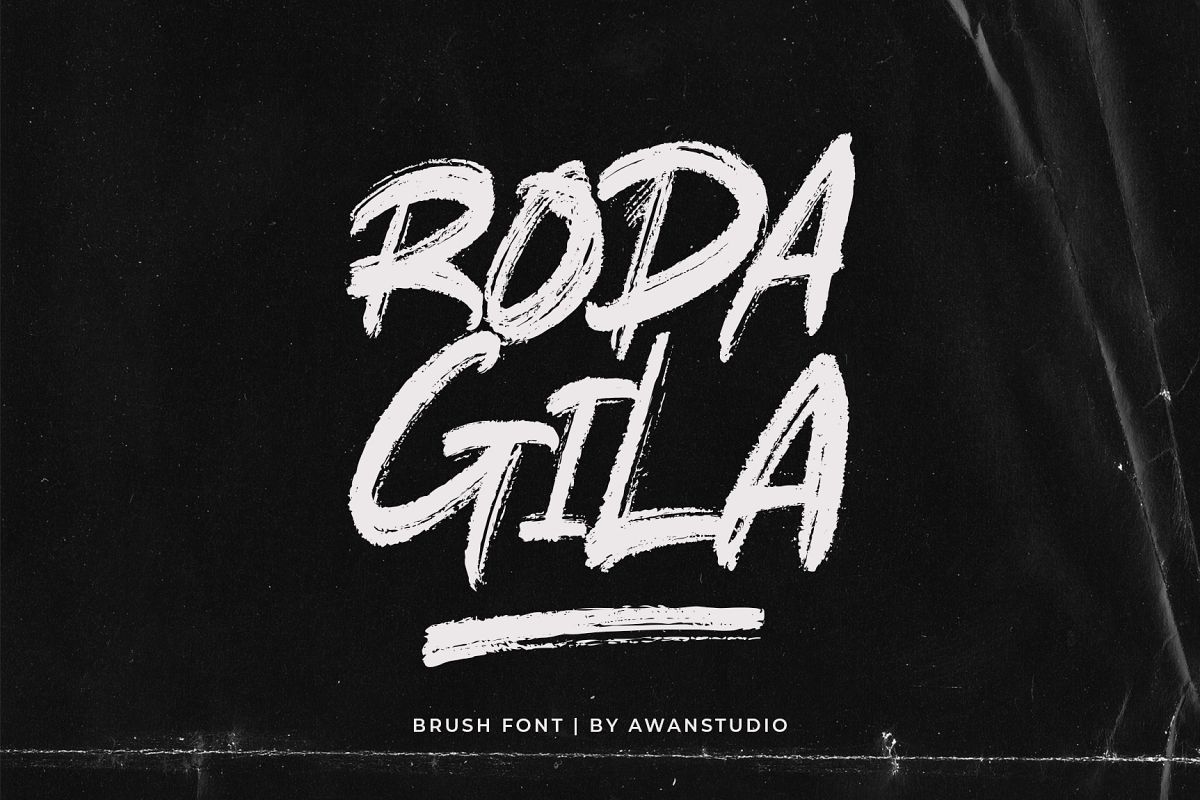
RODAGILA
RODAGILAswashes-Regular
RODAGILAItalic-Regular
RODAGILA-Regular
Rodagila is a strong and powerful display font with a contemporary feel. It will easily turn any design project into a stand out!